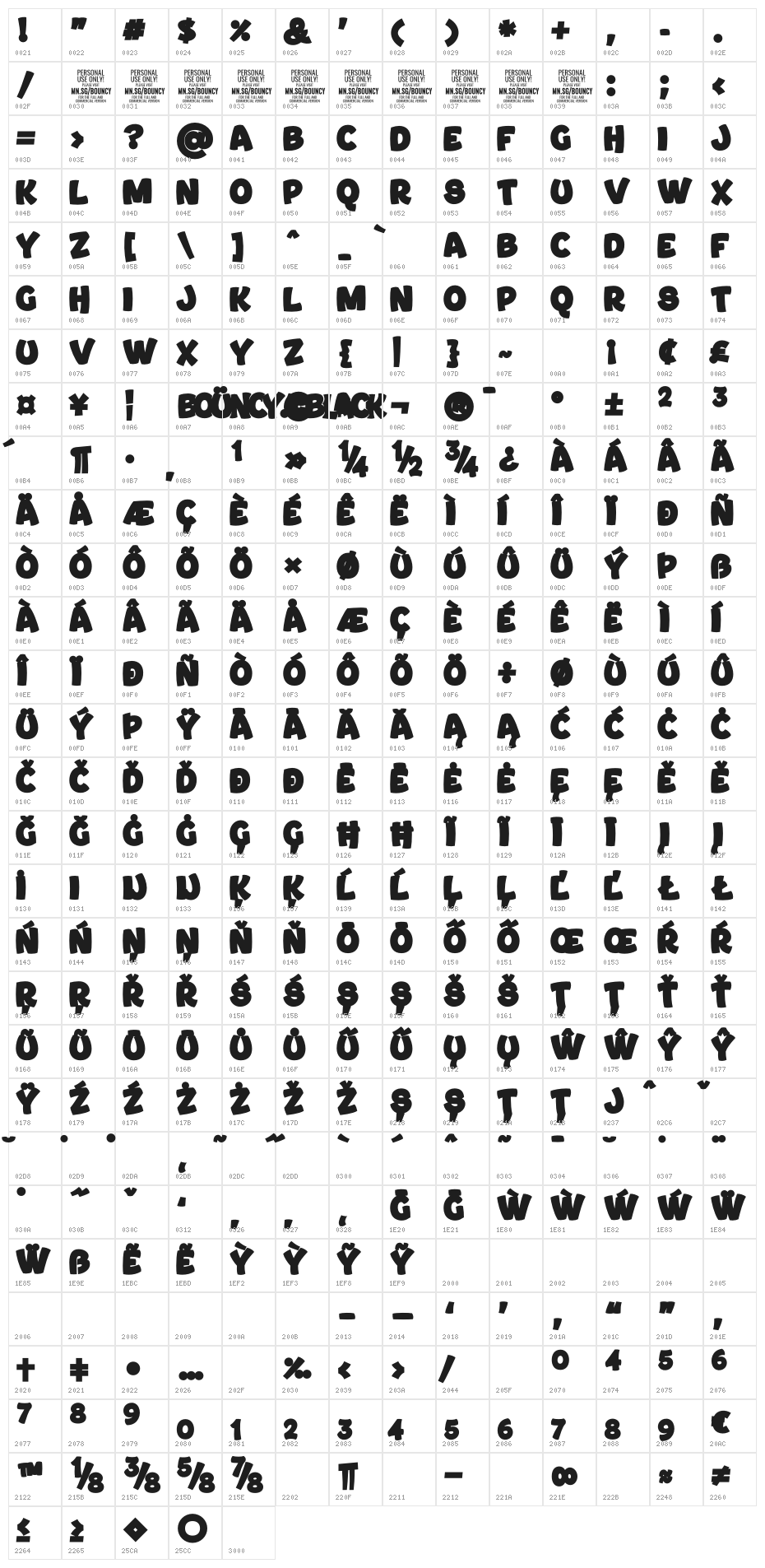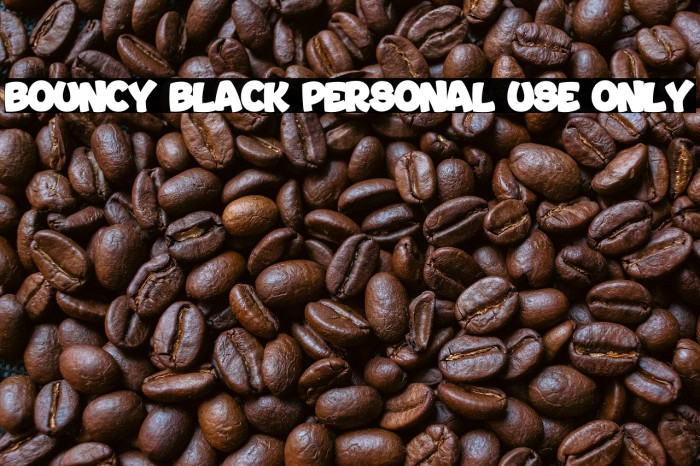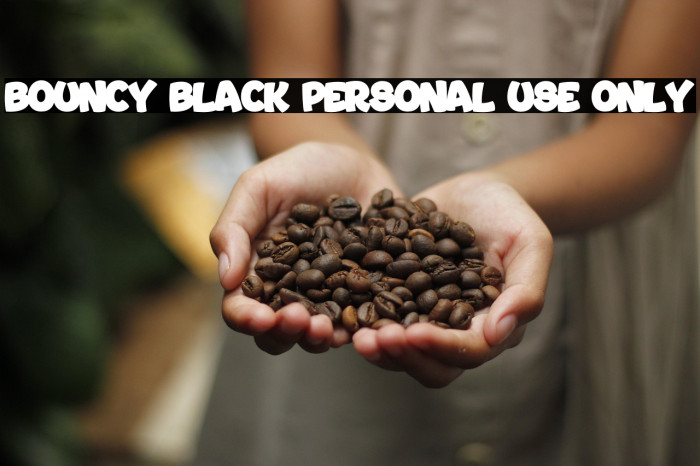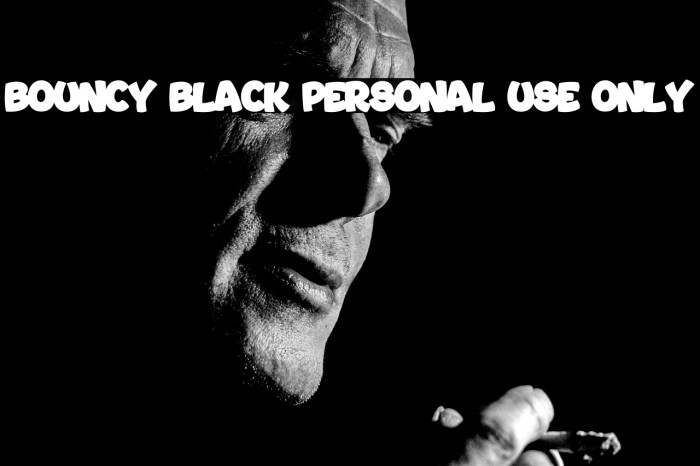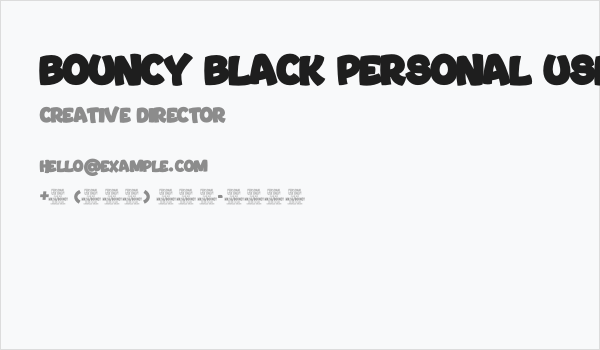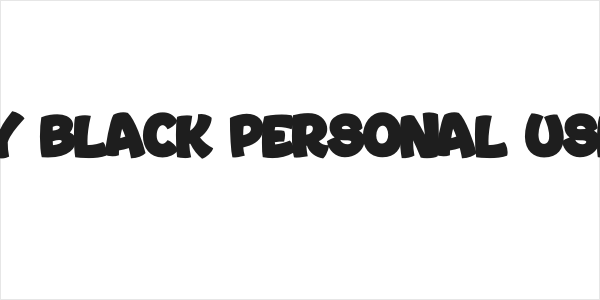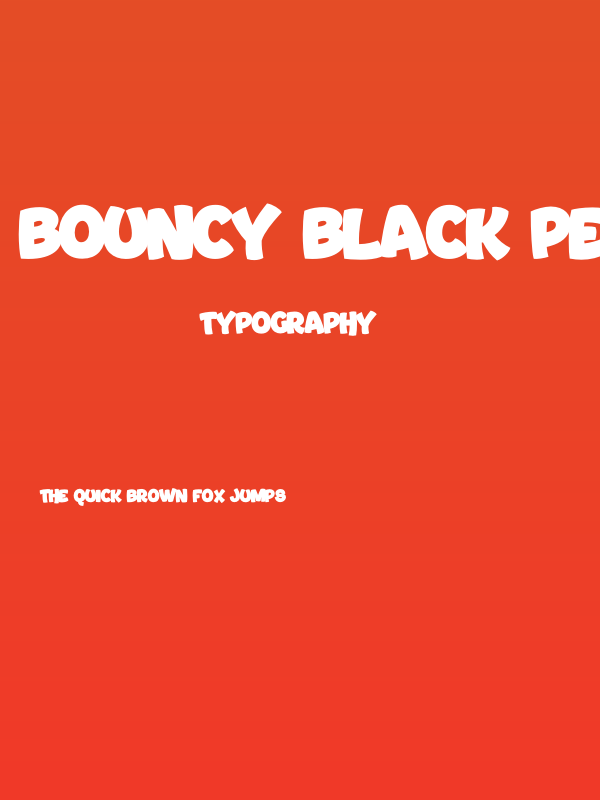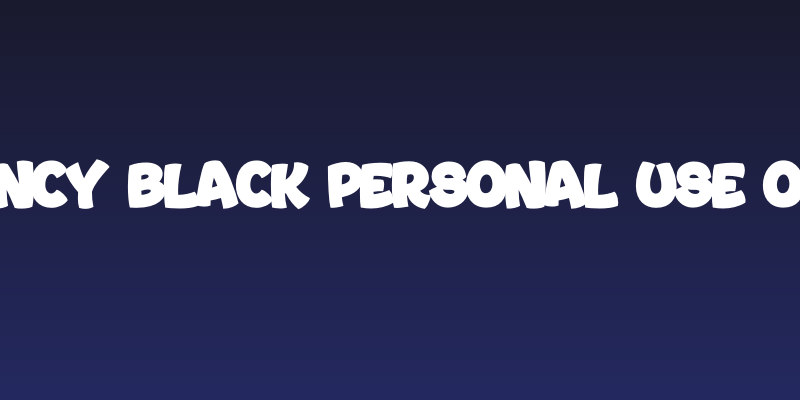
Bouncy Black PERSONAL USE ONLY Font
Bouncy Black PERSONAL USE ONLY Description
This font features a bold and playful design with exaggerated, rounded shapes that give it a bouncy and energetic appearance. The characters are thick and heavy, creating a strong visual impact. The style is informal and fun, making it ideal for projects that require a lively and dynamic feel. The uppercase and lowercase letters maintain a consistent weight, contributing to the font's cohesive look. The special characters are equally bold, ensuring they stand out alongside the letters. Overall, this font exudes a sense of joy and creativity, perfect for capturing attention.
| Overall Style | Playful, Energetic |
| Proposed Projects | Ideal for children's books, playful branding, event posters, and creative social media graphics. |